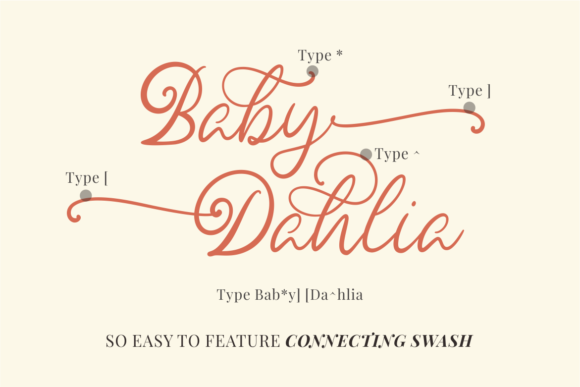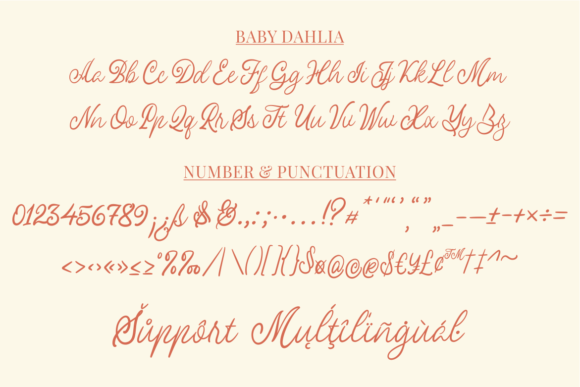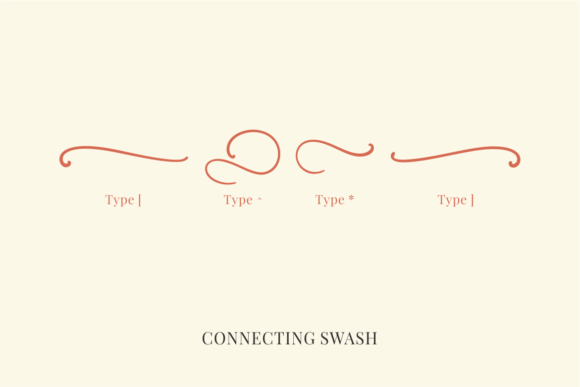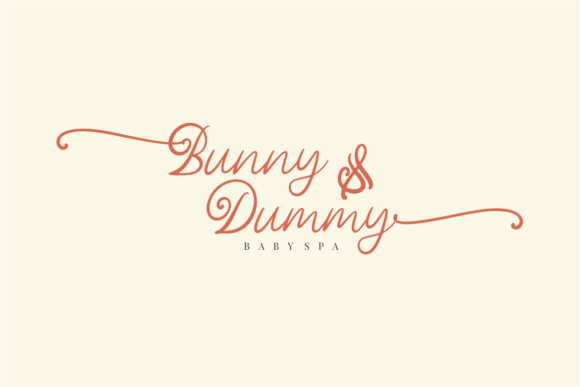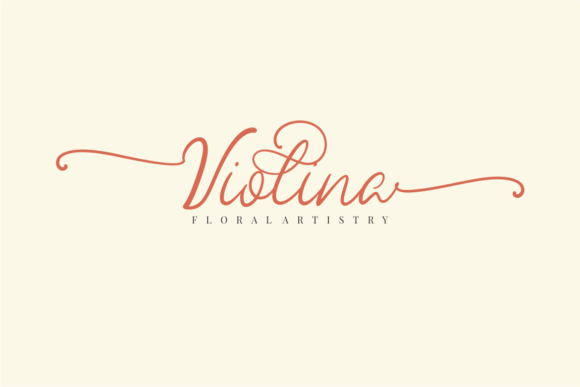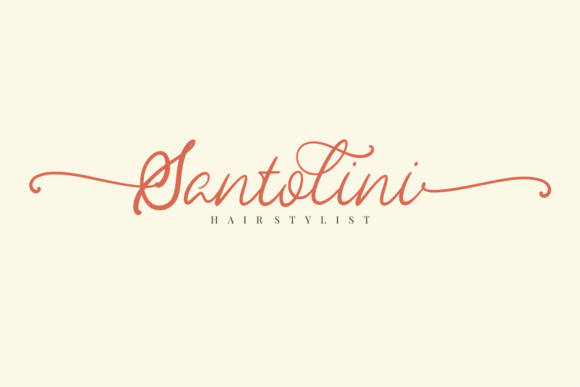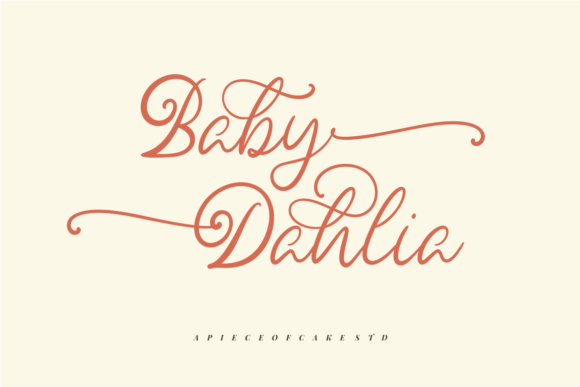
Baby Dahlia Font: Elevate Your Designs with Elegance and Whimsy
In the world of typography, few fonts capture the essence of elegance and playfulness as beautifully as the Baby Dahlia font. This magical script font is carefully crafted to add a touch of sophistication to any design project, making it a perfect choice for designers and crafters alike. Whether you’re looking for fonts to enhance your Instagram posts or calligraphy scripts for DIY projects, Baby Dahlia is sure to turn your creative ideas into true pieces of art.
The Charm of Baby Dahlia Font
Baby Dahlia font is a script typeface that exudes a sense of whimsy and romance. Its elegant strokes and flowing curves make it an ideal choice for projects that require a touch of sophistication. The font’s unique design ensures that it stands out from more traditional typefaces, allowing designers to create visually stunning content that captures the viewer’s attention.
Perfect for Instagram and Social Media
In today’s digital age, having a strong online presence is crucial for designers, crafters, and businesses. Baby Dahlia font is an excellent choice for Instagram and other social media platforms, where aesthetics play a significant role in engaging audiences. Use this font to create eye-catching captions, quotes, or promotional content that reflects your brand’s personality and style.
DIY Projects and Calligraphy
Crafters and DIY enthusiasts will love the Baby Dahlia font for its versatility and creative potential. Use this font to add a personal touch to your handmade projects, such as:
- Hand-lettered cards and invitations
- Customized gift tags and wrapping paper
- DIY home decor, such as wooden signs and wall art
- Calligraphy and lettering projects
The Baby Dahlia font’s elegant script style will elevate your DIY projects, making them look professionally designed and crafted.
Key Features of Baby Dahlia Font
So, what makes Baby Dahlia font so special? Here are some of its key features:
- Elegant script style: Baby Dahlia font boasts a beautiful, flowing script style that’s perfect for creating sophisticated designs.
- Magical and whimsical: This font has a touch of magic and whimsy, making it ideal for projects that require a sense of wonder and enchantment.
- High-quality design: Baby Dahlia font is carefully crafted with attention to detail, ensuring a high-quality design that looks great in any context.
- Versatile: This font is suitable for a wide range of design projects, from Instagram posts to DIY crafts and calligraphy.
Tips for Using Baby Dahlia Font
To get the most out of the Baby Dahlia font, here are some tips to keep in mind:
- Experiment with different sizes and colors: Play around with different font sizes and colors to find the perfect combination for your design.
- Pair with complementary fonts: Combine Baby Dahlia font with other fonts that complement its elegant script style, such as sans-serif fonts or serif fonts with a similar feel.
- Add embellishments and graphics: Enhance your design with embellishments and graphics that match the whimsical and magical feel of the Baby Dahlia font.
| Font Name | Baby Dahlia Font |
| Author | a piece of cake |
In conclusion, the Baby Dahlia font is a beautiful and versatile script typeface that’s perfect for designers and crafters looking to add a touch of elegance and whimsy to their projects. With its elegant strokes, flowing curves, and magical feel, this font is sure to turn any creative idea into a true piece of art. Whether you’re working on Instagram posts, DIY projects, or calligraphy, Baby Dahlia font is an excellent choice that will elevate your designs and make them stand out from the crowd.